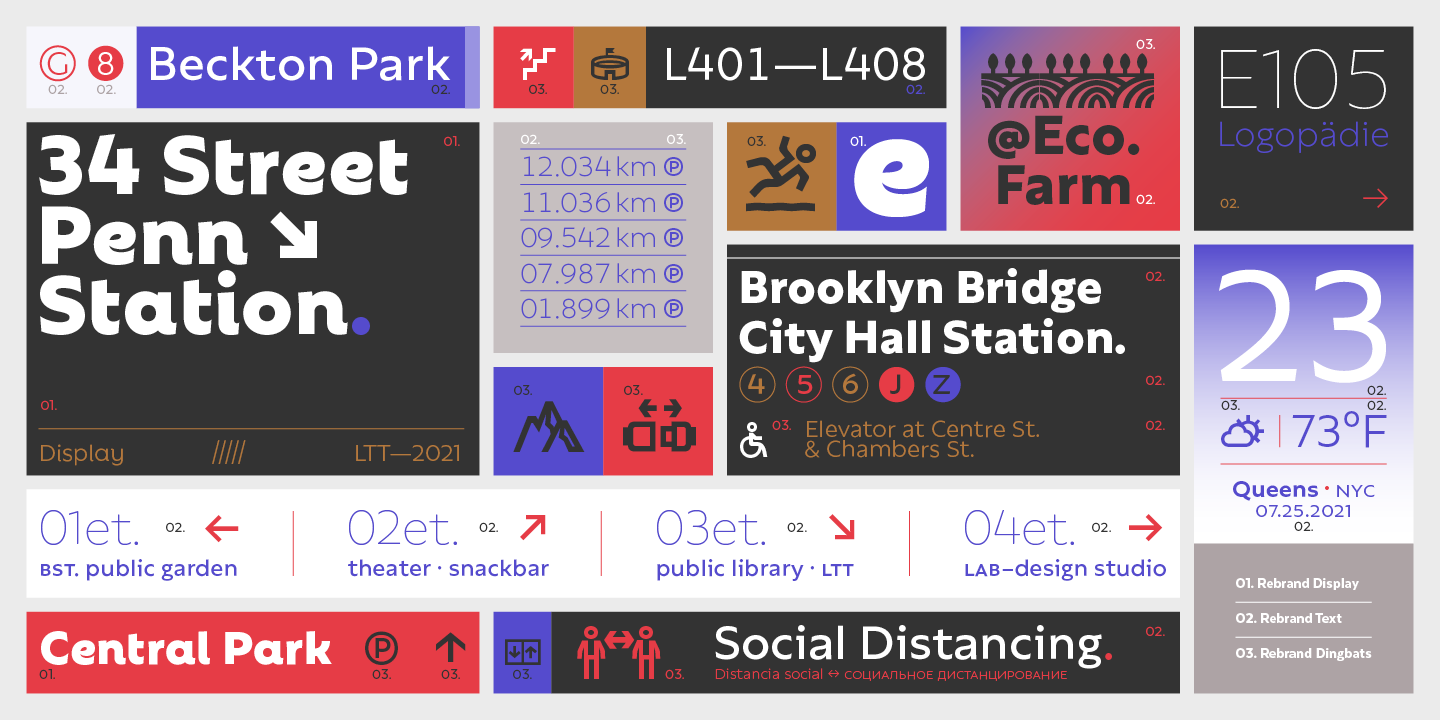
Looking to redefine your brand's visual identity with a font that embodies modernity, versatility, and strategic impact? Rebrand Font Free Download offers an exceptional opportunity to explore a typeface designed for contemporary communication. It's crucial to remember, however, that while a Rebrand Font Free Download might be available for personal and testing purposes, a commercial license is required for any professional or revenue-generating projects. This ensures legal compliance and provides essential support to the talented font designers.
The Rebrand Font is exceptionally well-suited for projects that demand a clean, professional, and forward-thinking aesthetic. Its often minimalist, geometric, or neo-grotesque design, characterized by clear lines and balanced proportions, makes it an ideal choice for corporate branding, sophisticated website interfaces, and impactful advertising campaigns. It excels as body text in annual reports, business presentations, and extensive digital publications, ensuring effortless readability and a polished user experience. Furthermore, consider Rebrand Font for UI/UX design, app development, and large-scale signage systems where efficient and clear communication is critical. Its robust yet elegant character also makes it perfect for brand guidelines, marketing collateral, and modern editorial layouts.
What makes the Rebrand Font so exciting is its remarkable ability to convey both subtle sophistication and uncompromising clarity. It often features neutral yet distinct letterforms that are designed for optimal readability across various platforms and sizes. This characteristic allows it to communicate a sense of authority, precision, and modernity, ensuring your message is communicated with absolute clarity and impact. It’s a font that doesn't just look good; it performs exceptionally, providing a reliable and elegant foundation for any serious design project aiming for a fresh start or a stronger identity. Its sophisticated simplicity ensures your work will appear polished, trustworthy, and highly effective.
The Rebrand Font family typically boasts a comprehensive range of weights, making it incredibly adaptable for complex typographic hierarchies. You'll often find an extensive selection, from Thin and Light to Regular, Medium, SemiBold, and Bold, usually accompanied by corresponding italic styles. More extensive families might even include ExtraBold or Black weights, and potentially condensed or extended versions, providing immense flexibility to create visually rich and harmonized layouts while maintaining a cohesive and professional brand identity across all touchpoints.